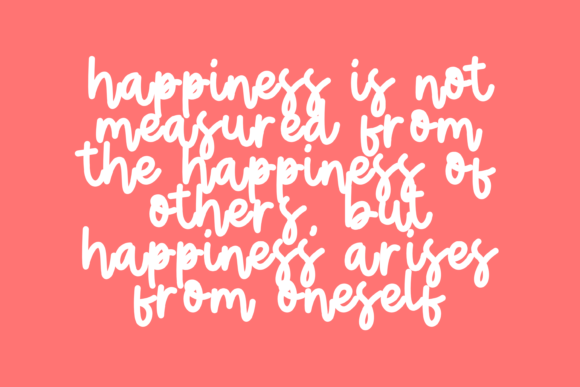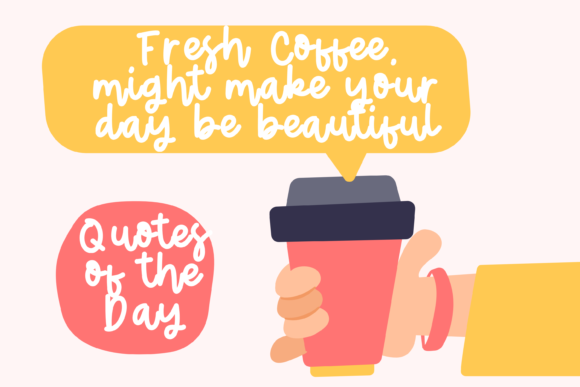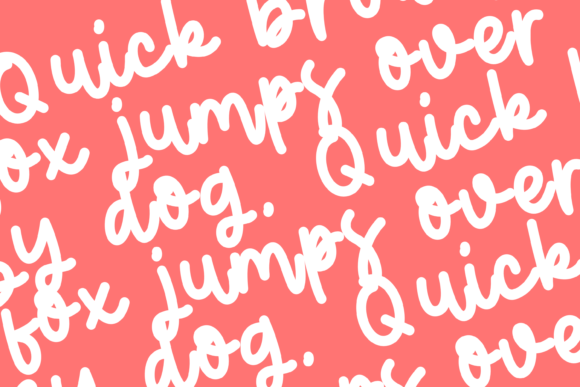
Introduction to Fresh Beverage Font
Fresh Beverage is a simple and relaxed handwritten font.
Key Features of Fresh Beverage Font
Why Choose Fresh Beverage Font?
Fresh Beverage Font offers exceptional quality and versatility, making it a valuable addition to your design toolkit. Whether you’re creating for personal projects or commercial use, Fresh Beverage Font delivers professional results.